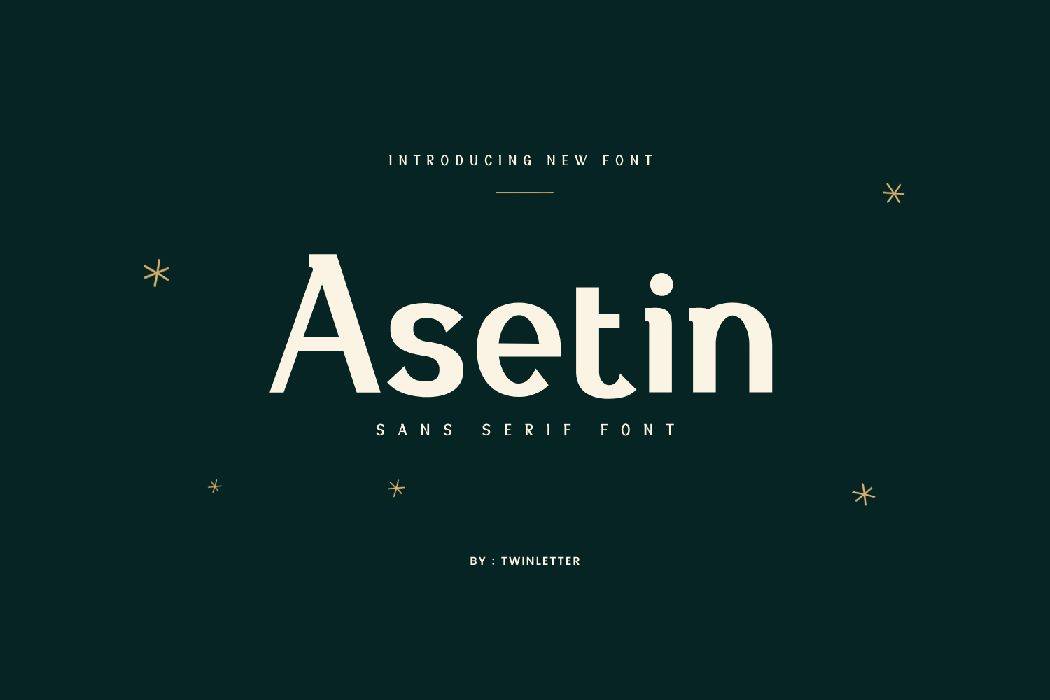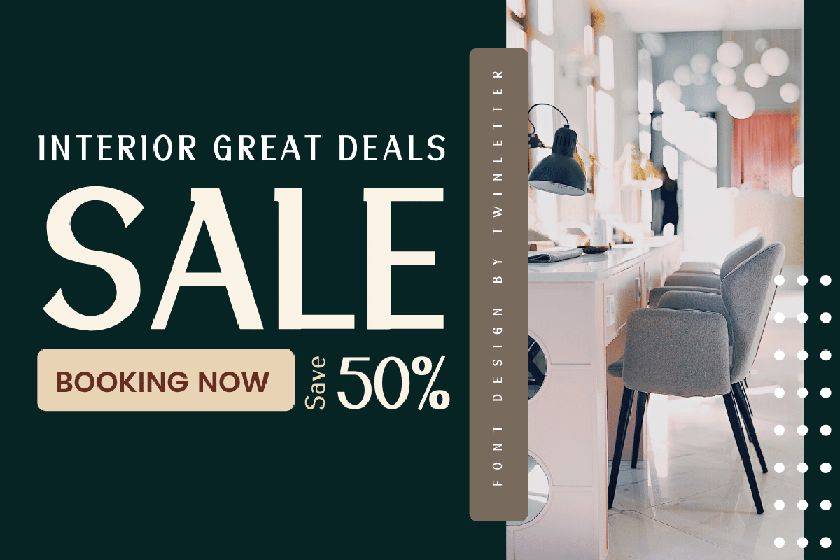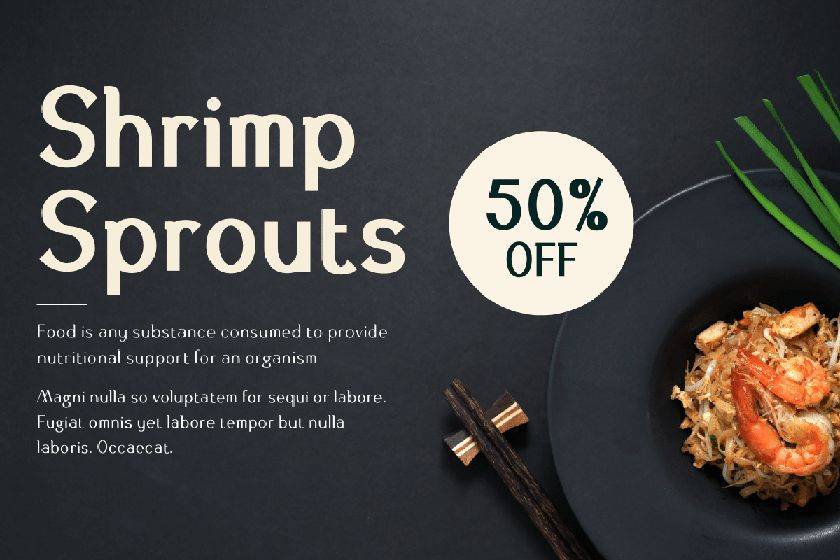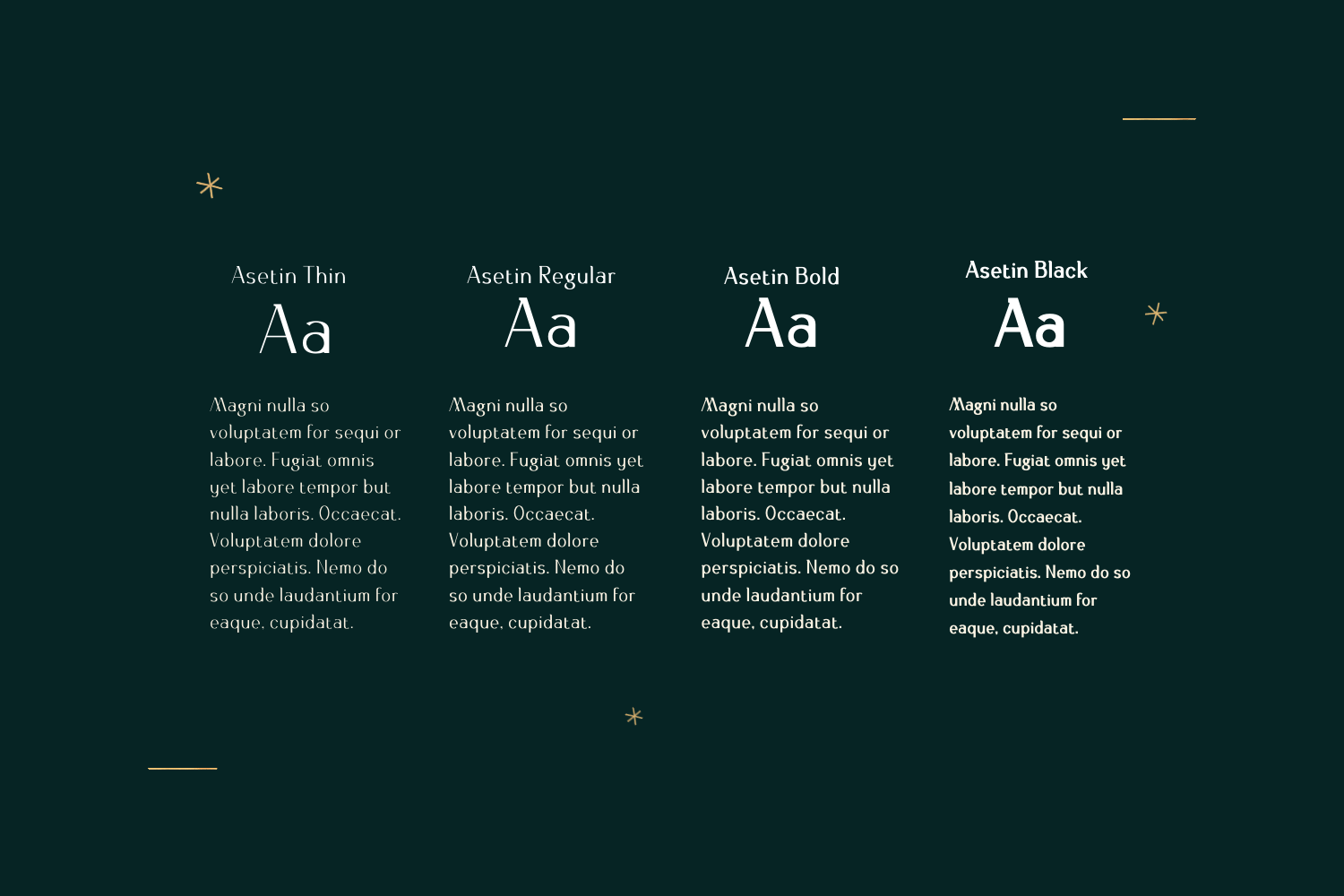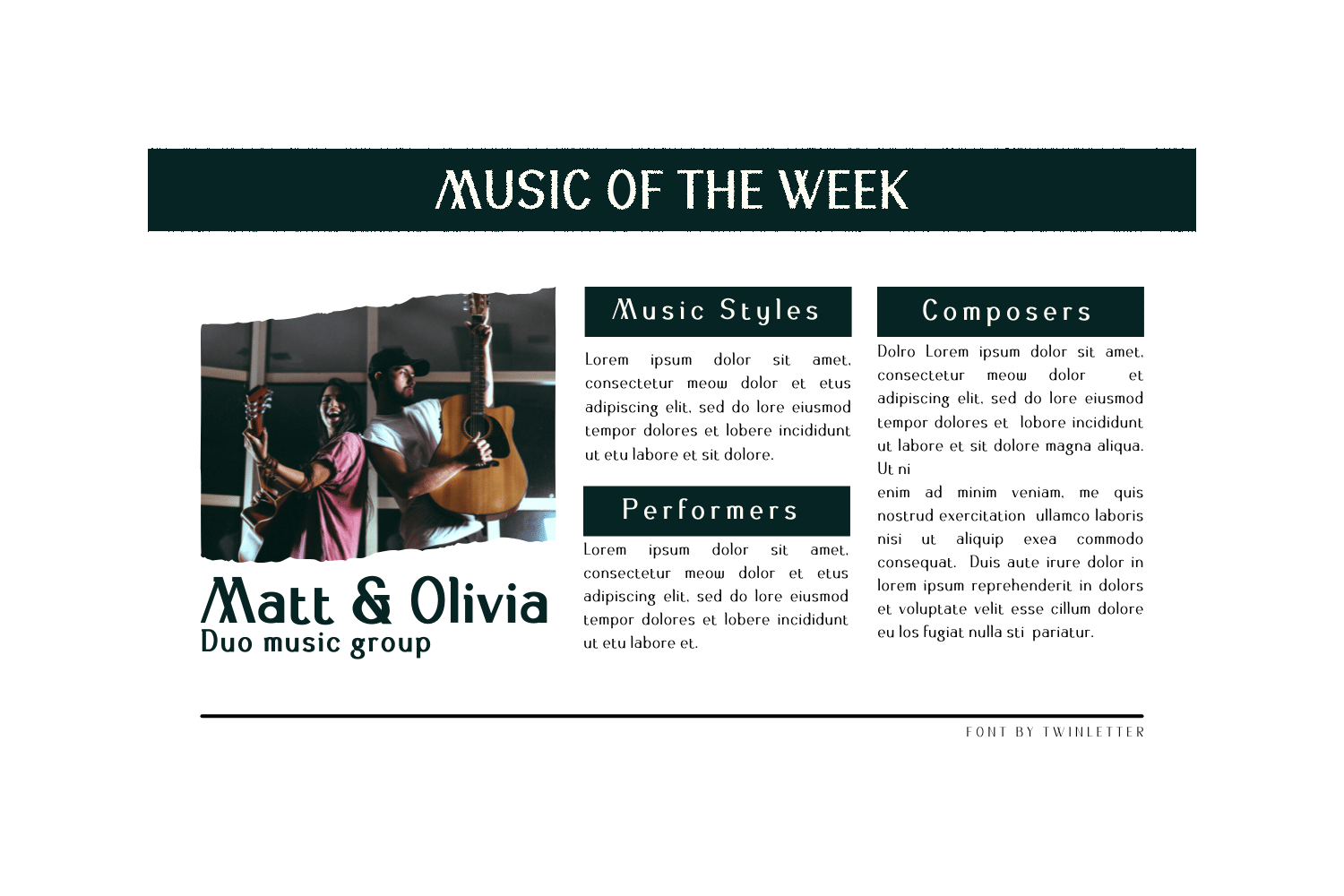
Asetin is a distinctive serif typeface that combines classic elegance with playful, unconventional details, making it stand out with its unique, angled strokes and quirky letterforms. Its moderate weight and medium contrast give it versatility, while its slightly condensed width and notable features like the double-story 'a' and 'g' add character, making it ideal for creative branding, editorial headlines, and projects that want a touch of sophistication with personality. This font works well where you want to convey a refined yet modern and artistic vibe.
Asetin Font
About Asetin Font
| Font family | Asetin Font |
| Release date | 2022-03-09 |
| Designer | afri |